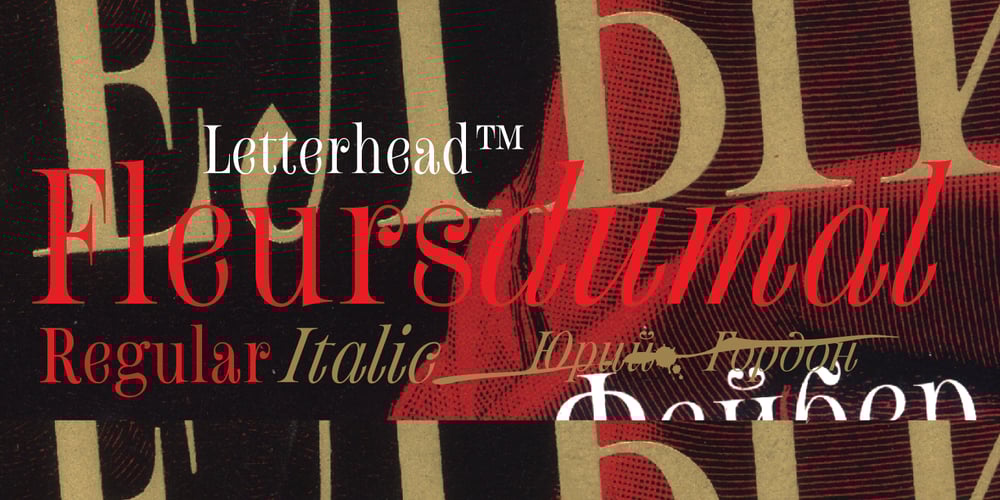
Fleursdumal Font Family was designed by Yuri Gordon and published by Letterhead Studio-YG. Fleursdumal contains 2 styles and family package options. How should an authentic baudelairean type look like? Aesthetically beautiful, that’s for sure. Intellectual, neurotic. Uptight — oh, the conventions of the time. Easily readable — still 20 years to go until the age of art nouveau with its outrage of typefaces. It may have a vibe of a Paris salon – salute to the Parnassiens. Such a modern-class (don’t mix it with the modern-styled) pharmaceutical Antiqua. Contrasts, thin serifs, the integrity of the operating theatre. But Baudelaire is not Heredia. «Une charogne» is not that much a vivid metaphor as a drawing from nature. The baudelairean typeface should have its cavern, flow, dark side. Not to demonstrate the fragile romantic profile of a cursed poet, as Baudelaire was seen 130 years ago, but to express the real pain. A true, unattractive, egoistic, suicidal passion.